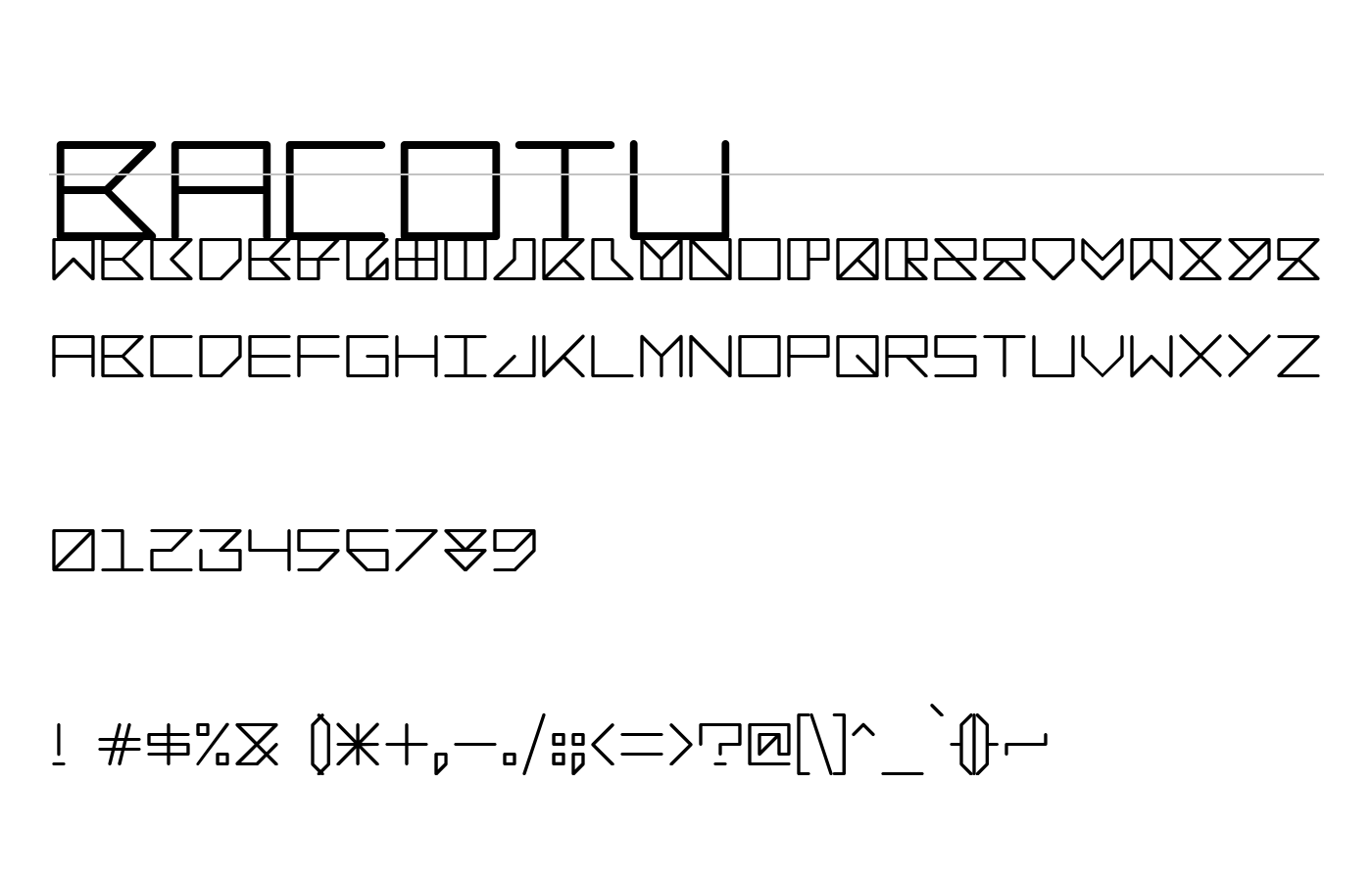
Bacotu is a modern, geometric sans serif font featuring thin lines and a unique angular design that gives it a futuristic, tech-inspired feel. Its narrow structure and sharp, precise strokes make it ideal for striking headlines, logos, and digital branding where a minimalist yet distinctive look is desired. This font works best in projects that seek a clean, contemporary style with an inventive edge.
Bacotu Font
About Bacotu Font
| Font family | Bacotu Font |
| Designer | Hiep Tong |